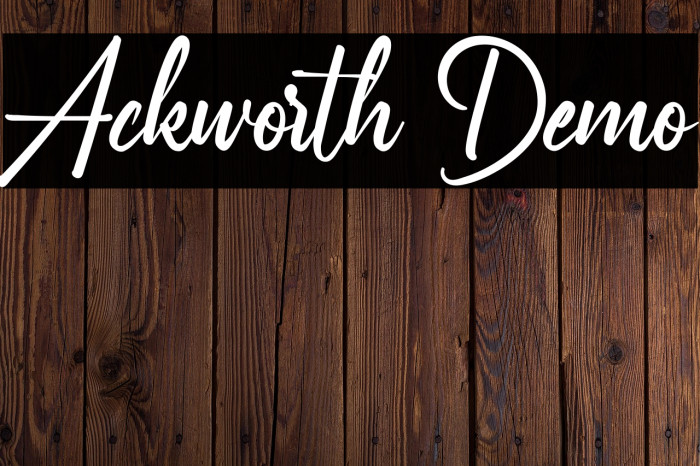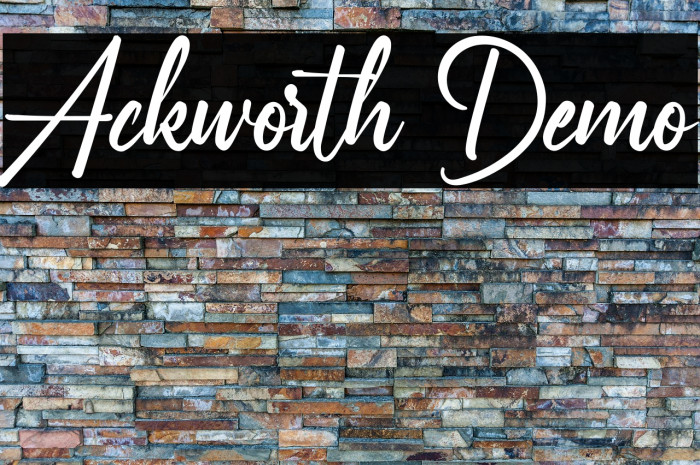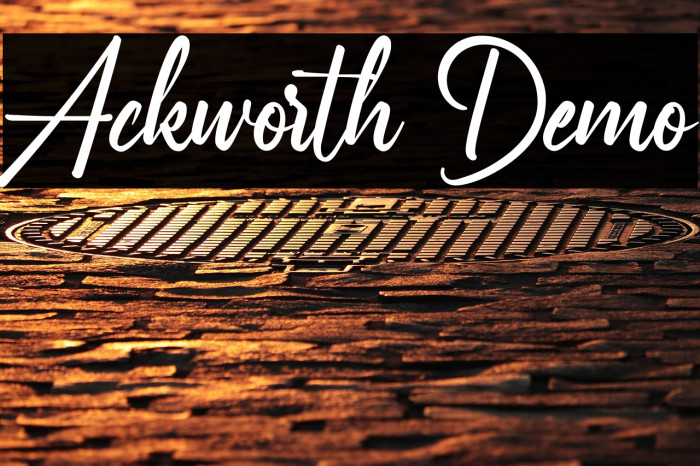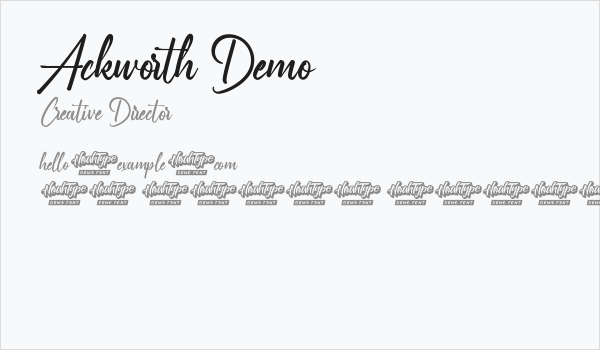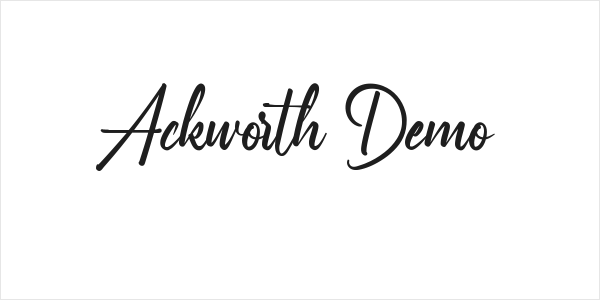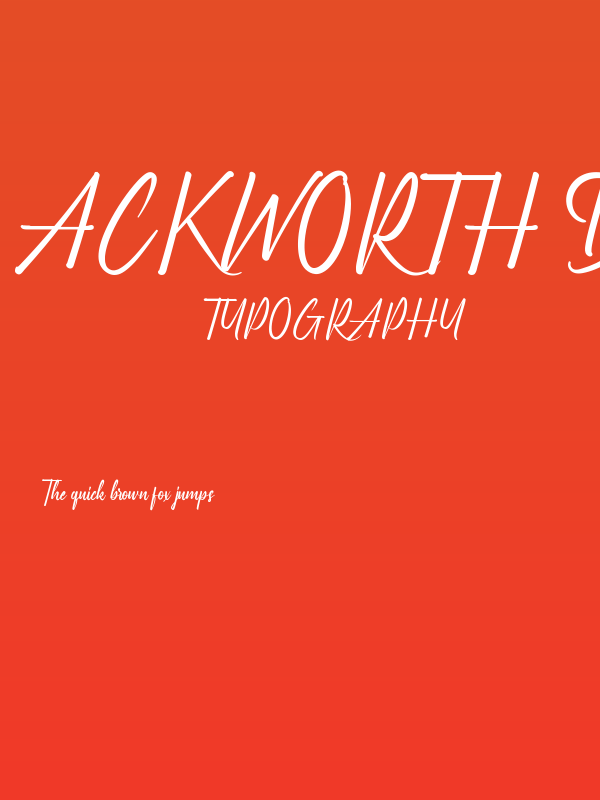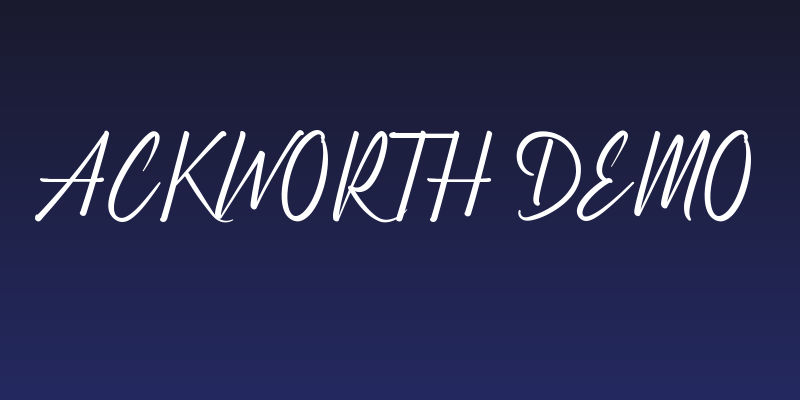
Ackworth Demo Font
Ackworth Demo Description
This font features a dynamic and flowing script style, characterized by its elegant and connected letterforms. The uppercase letters are tall and slender, with a slight slant that adds a sense of movement and grace. The lowercase letters maintain a consistent flow, with smooth curves and loops that enhance its handwritten appearance. The overall design is both sophisticated and approachable, making it suitable for a variety of creative applications. The font's fluidity and rhythm give it a lively and expressive quality, perfect for projects that require a personal touch.